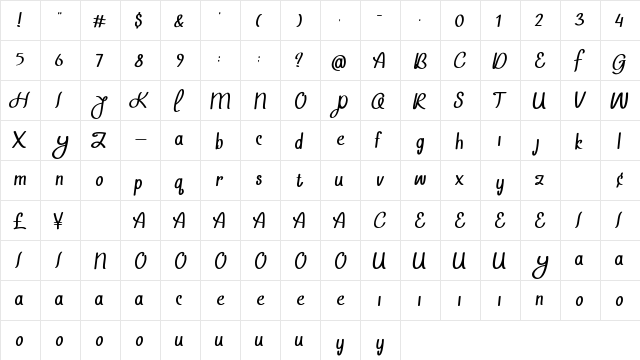
Goyoh Regular
| Foundry | Alego |
| Designer | Aidil Muladha |
Design Context for Goyoh Typeface
Goyoh takes a measured approach to typography — its balanced proportions and neutral character make it a reliable workhorse for both digital and print work.